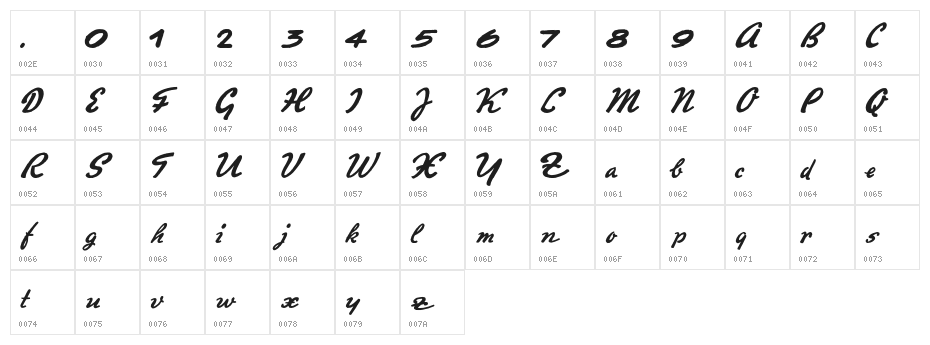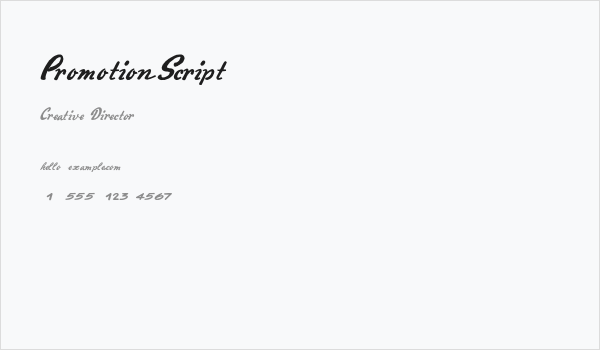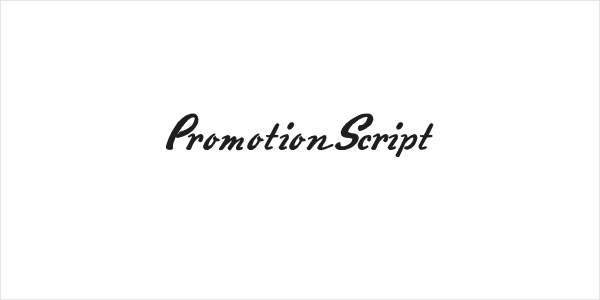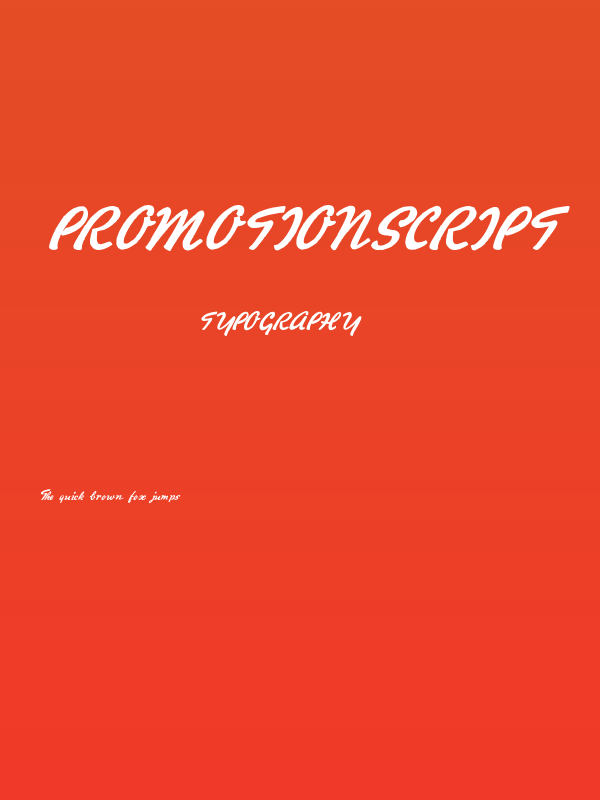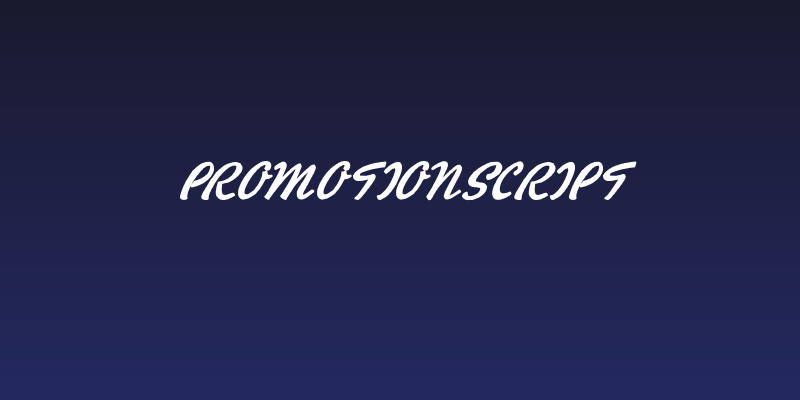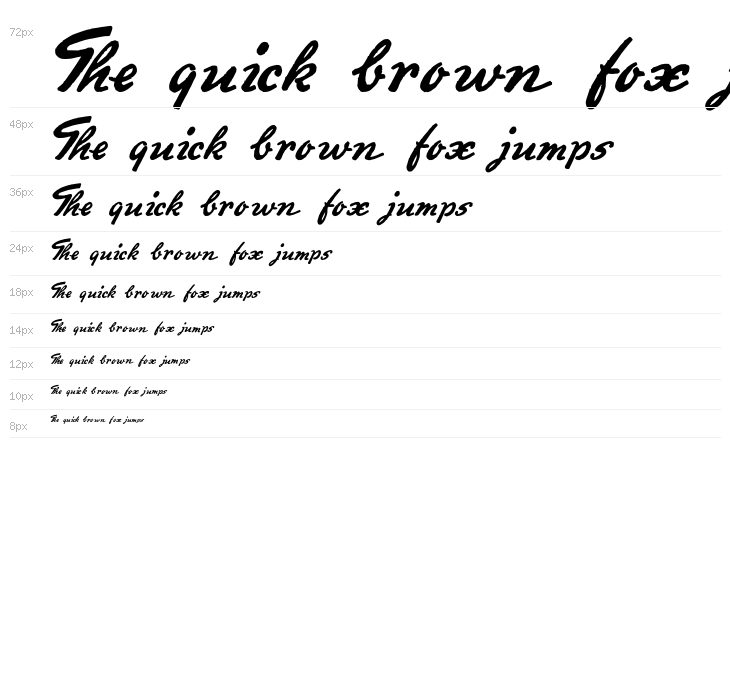
PromotionScript Font
PromotionScript Description
This font exudes a dynamic and energetic style, characterized by its fluid, cursive script that mimics the natural flow of handwriting. The letters are slightly slanted, adding a sense of movement and elegance. The strokes are bold and confident, with a medium contrast between thick and thin lines, giving it a robust appearance. The uppercase letters are particularly striking, with sweeping curves and flourishes that enhance its decorative appeal. The lowercase letters maintain a consistent style, ensuring readability while retaining the font's artistic flair. The numbers are well-integrated, matching the overall aesthetic with their rounded and flowing forms. This font is ideal for projects that require a personal touch or a sense of sophistication.
| Use Case | Logos, Invitations, Branding |
| Proposed Projects | Ideal for wedding invitations, greeting cards, branding, and logo design. |